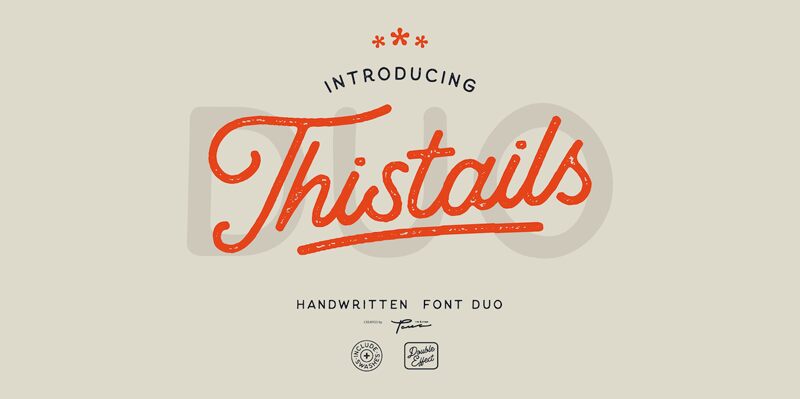
Thistails Script Rough is a vintage script font designed by Panatype Studio. With its semi-light weight, this font exudes a touch of elegance and sophistication. The Thistails font duo, which includes both the script and Display Sans serif typefaces, offers a modern vintage look that is perfect for various design projects.
Whether you're creating digital lettering, designing logos or t-shirts, printing business cards, or developing branding materials, Thistails Script Rough can add charm and uniqueness to your creations. Its hand-painted and carefully crafted design makes it ideal for nature photography projects as well. Let your imagination run wild with Thistails Script Rough and create stunning visuals that will captivate your audience.